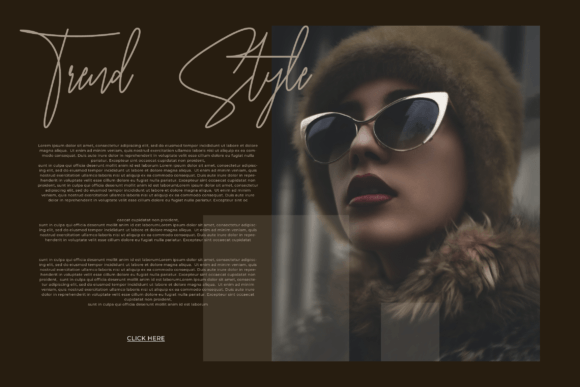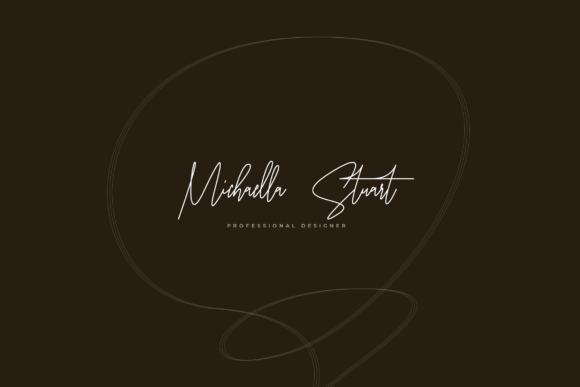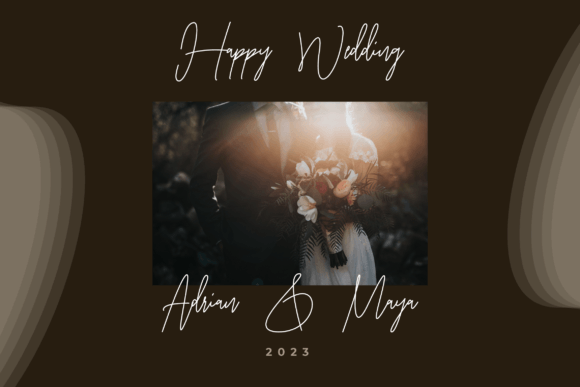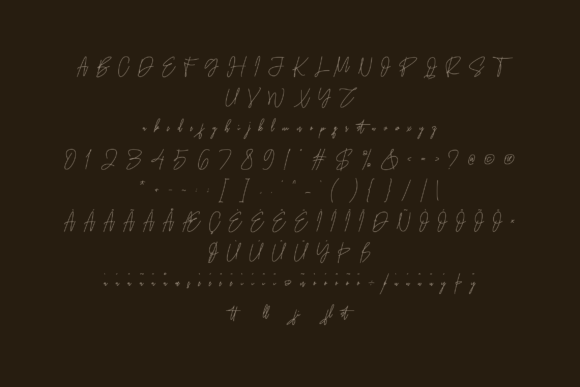
Introduction to Himatany Font
As a designer, there’s nothing quite like the thrill of discovering a new font that perfectly captures the essence of your creative project. For me, it was the moment I stumbled upon the Himatany Font, and I knew I had to share it with the world. This stunning script font boasts a monoline style that’s both elegant and versatile, making it the perfect addition to any design.
The Himatany Font is a game-changer for designers, offering a high-quality design resource that’s free to download and customize to your heart’s content. With its transparent background, it’s perfect for crafting eye-catching graphics and social media posts that truly stand out from the crowd.
Whether you’re a seasoned pro or just starting out, the Himatany Font is an invaluable asset for any design project. Its unique style and effortless sophistication make it a must-have for anyone looking to elevate their creative work to the next level.
Key Features of Himatany Font
- High-quality design resource for creative projects, perfect for use in various digital applications.
- Transparent background, allowing for easy customization and layering in design projects.
- Includes a wide range of characters, including Latin and Cyrillic scripts, for global design applications.
- Optimized for high-resolution displays, ensuring crisp and clear typography in various creative projects.
- Regularly updated with new characters and styles, keeping your design projects fresh and up-to-date.
Honest Review: Himatany Font
As a designer, I’m always on the lookout for high-quality design resources to enhance my creative projects. Recently, I stumbled upon the Himatany Font, and I’m excited to share my honest review with you.
What works well: ✨ The Himatany Font is incredibly versatile, suitable for a wide range of creative projects. Its sleek and modern design makes it perfect for modern branding, websites, and digital products. The font also offers a transparent background, which allows for seamless integration with various design elements.
- ✨ Clean and modern design
- ✨ High quality and clear typography
- ✨ Suitable for various creative projects
- ✨ Transparent background for easy integration
Overall, I’m impressed with the Himatany Font. Its high quality, versatility, and transparent background make it a valuable design resource. While it may have some limitations, it’s definitely worth considering for your next creative project. The Himatany Font is available for free download, making it an excellent option for designers on a budget.
Tips for Getting the Most Out of Himatany Font
To get the most out of the Himatany Font, use it in combination with a transparent background to create a striking design. You can also experiment with different font sizes and styles to add depth and interest to your design.
The Himatany Font is perfect for a variety of creative projects, including logos, business cards, and social media graphics. It’s also great for use in presentations, reports, and other business documents.